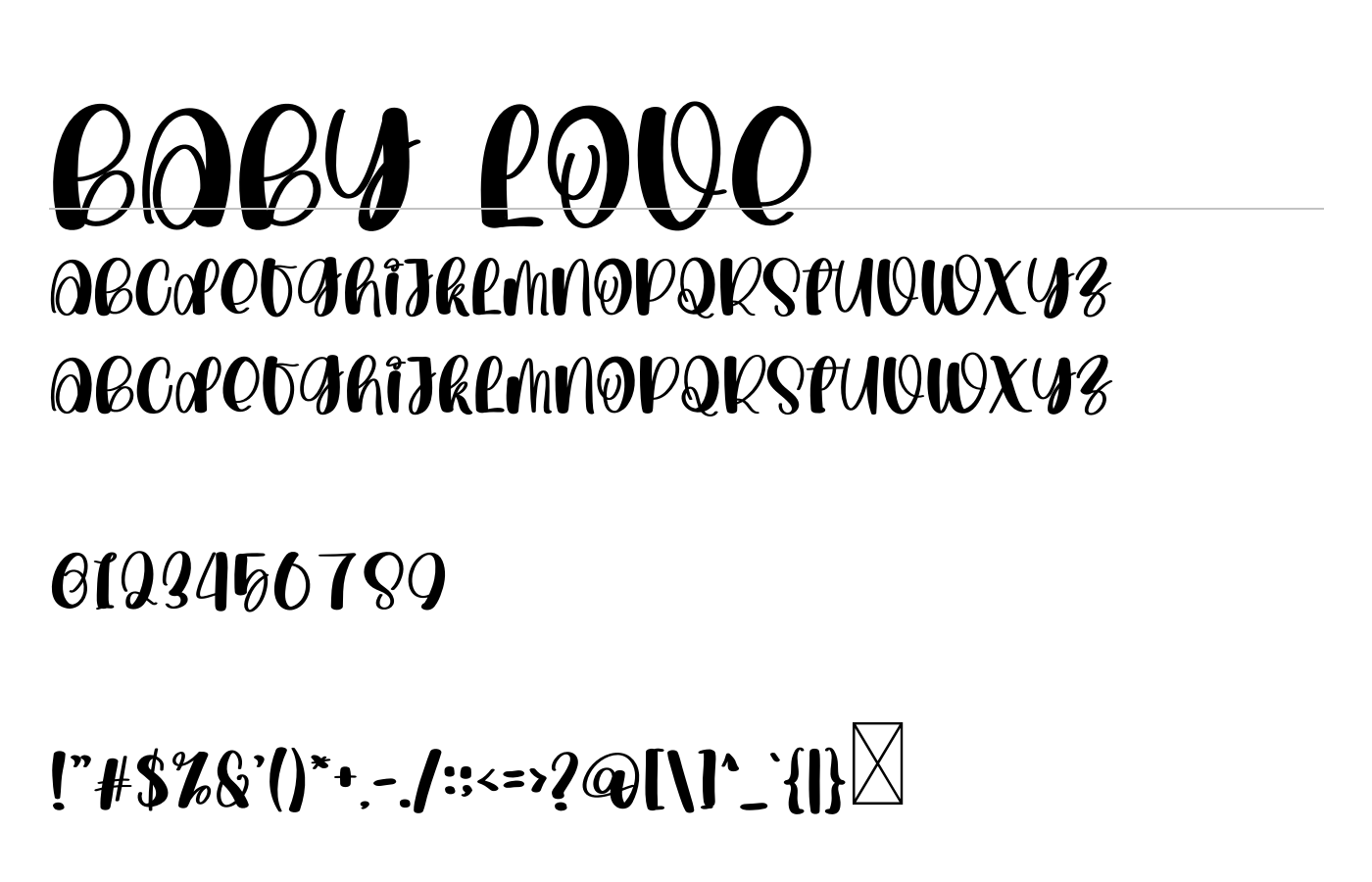
Baby Love Font is a playful and charming script typeface with a bold, rounded weight and lively, curvy strokes. Its whimsical letterforms, including loops and swirls, give it a friendly, informal vibe perfect for creative projects like children's products, invitations, and branding that seeks warmth and approachability. This font works well in headlines and decorative use where a fun and affectionate mood is desired.
Baby Love Font
About Baby Love Font
| Font family | Baby Love Font |